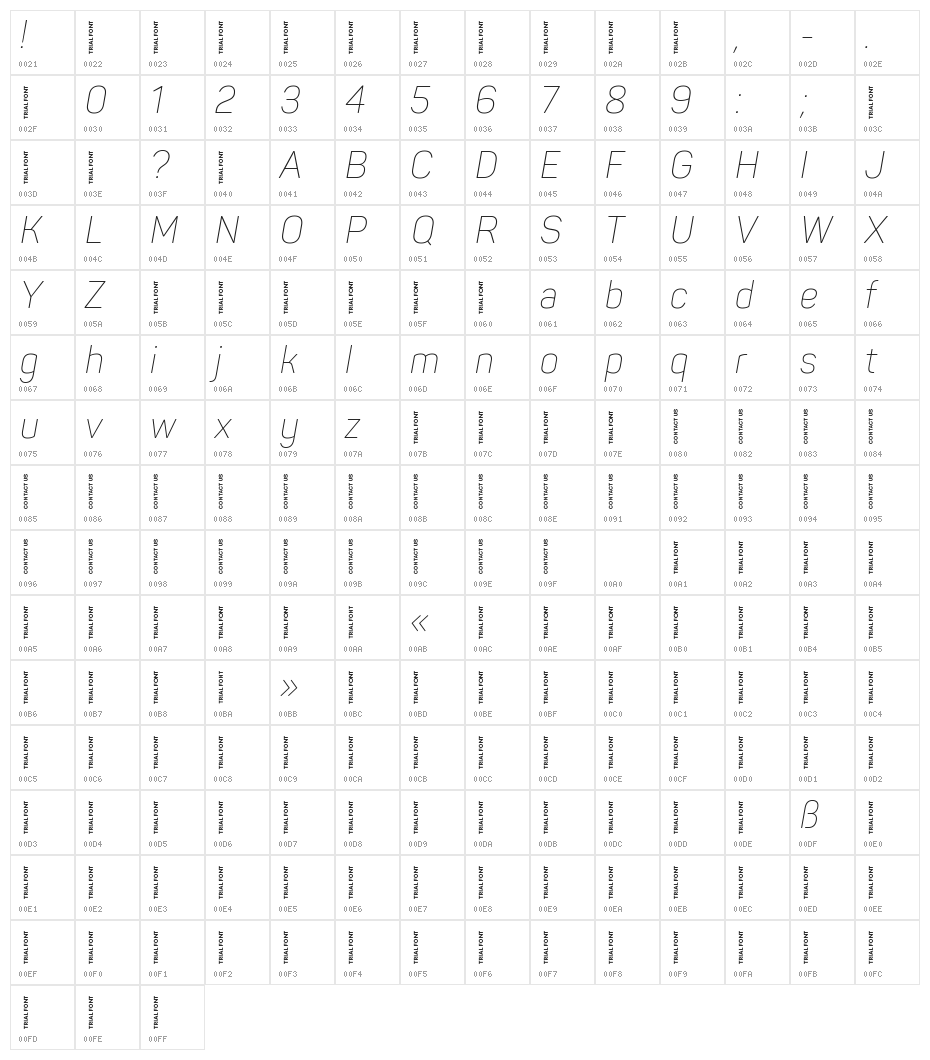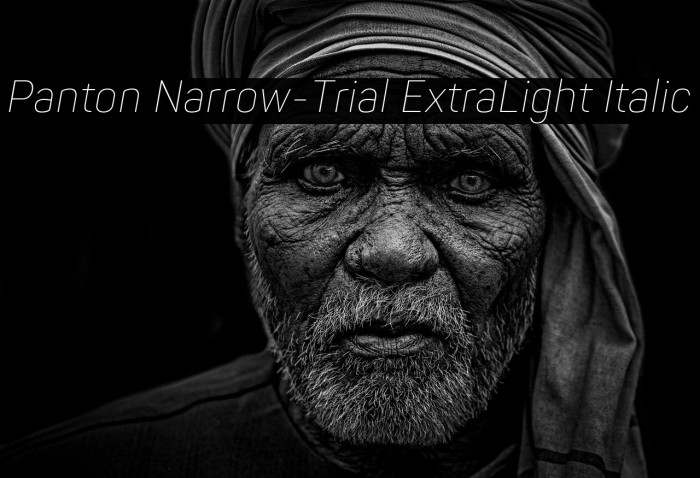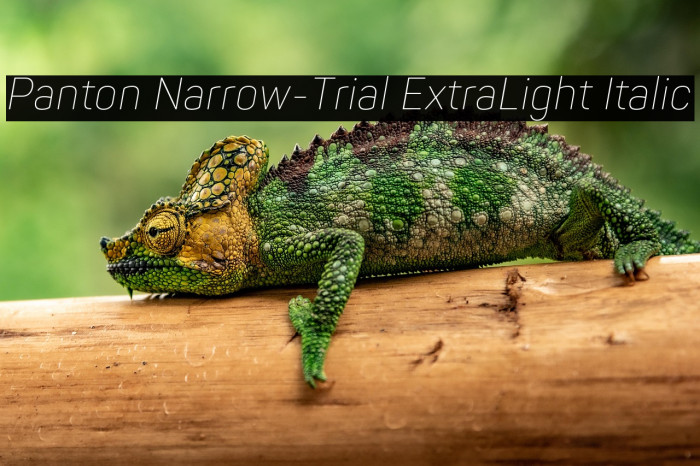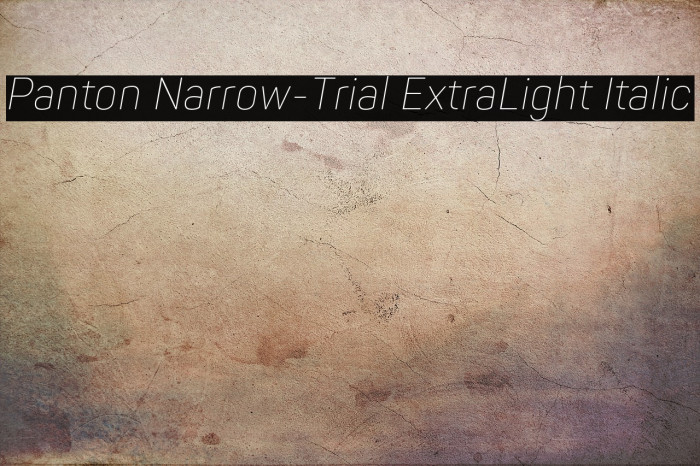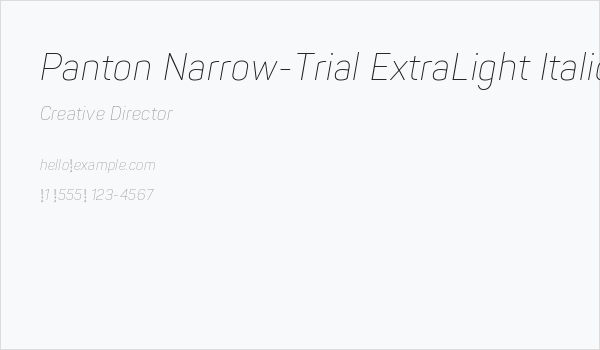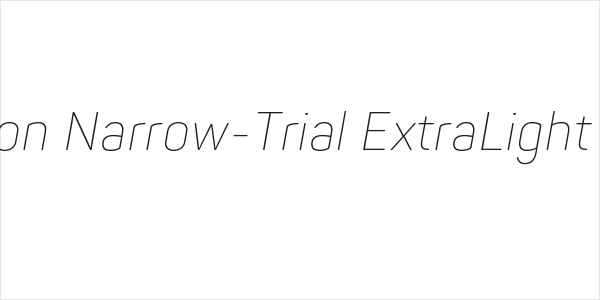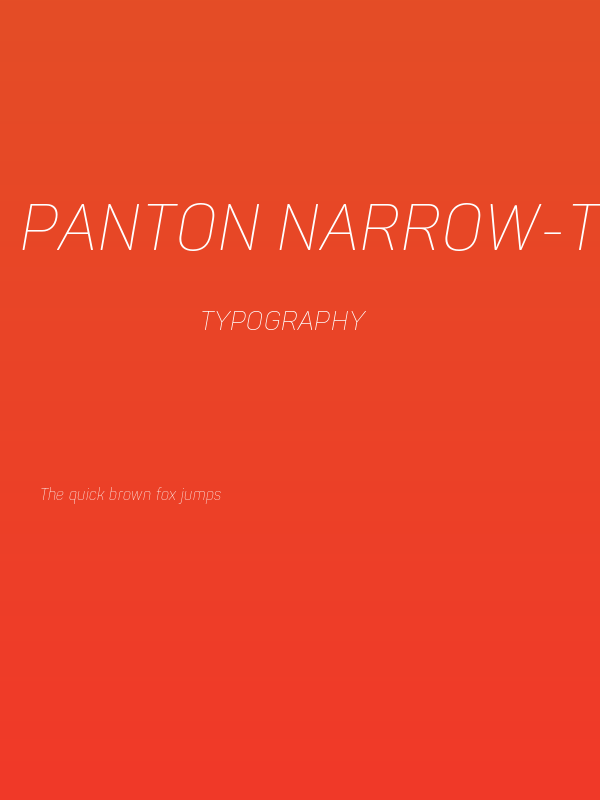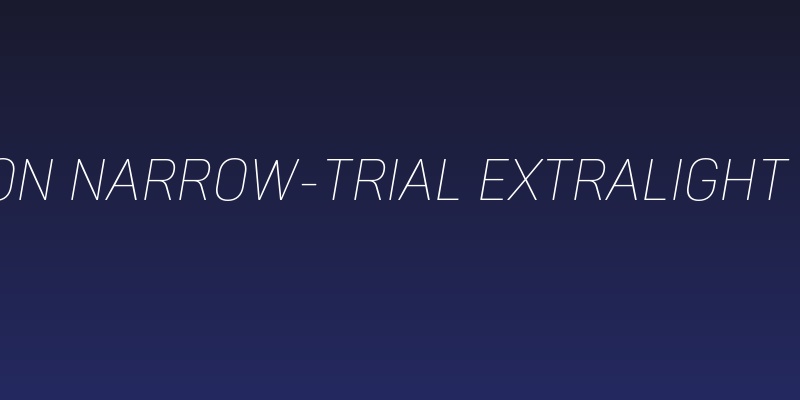
Panton Narrow-Trial ExtraLight Italic Font
Panton Narrow-Trial ExtraLight Italic Description
This font features a sleek and modern design with a narrow structure and an extra light weight. The italic style adds a sense of motion and elegance, making it suitable for contemporary design projects. The characters are elongated and slightly condensed, providing a sophisticated look. The clean lines and minimalistic approach ensure readability while maintaining a stylish appearance. The font's overall aesthetic is perfect for projects that require a touch of modernity and elegance.
| Proposed Projects | Ideal for fashion magazines, modern branding, sleek website headers, and elegant invitations. |